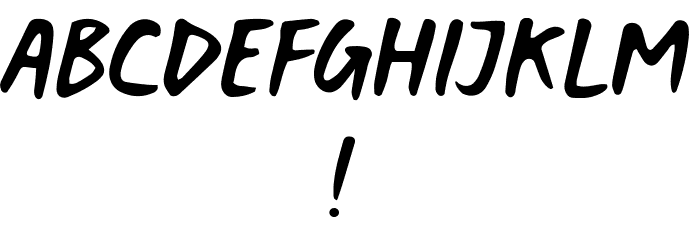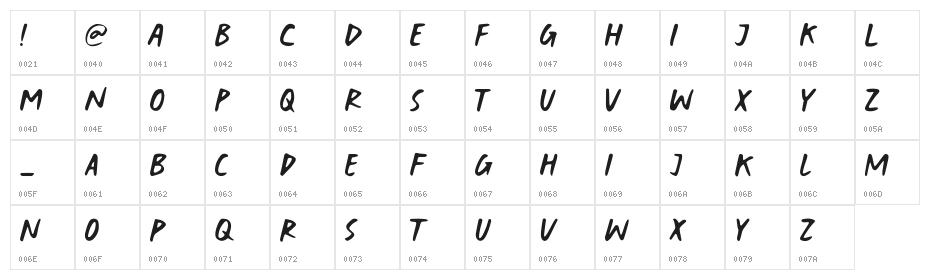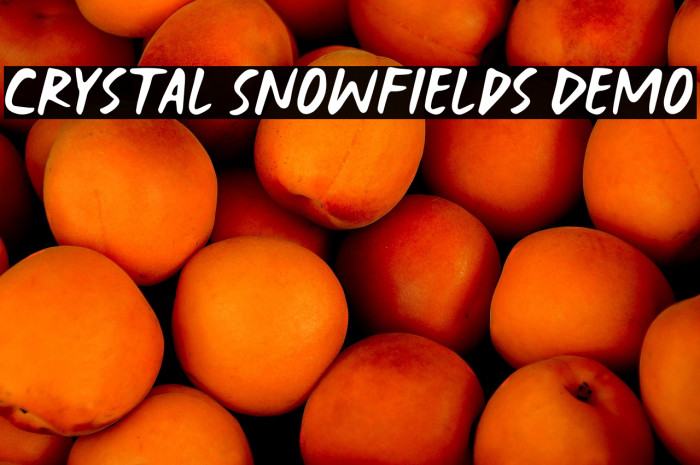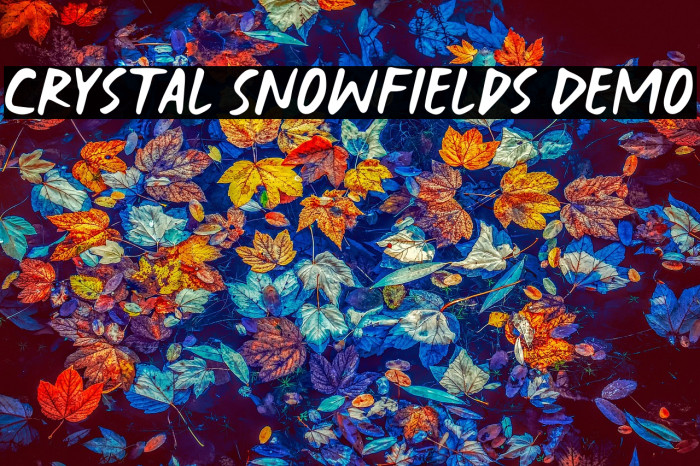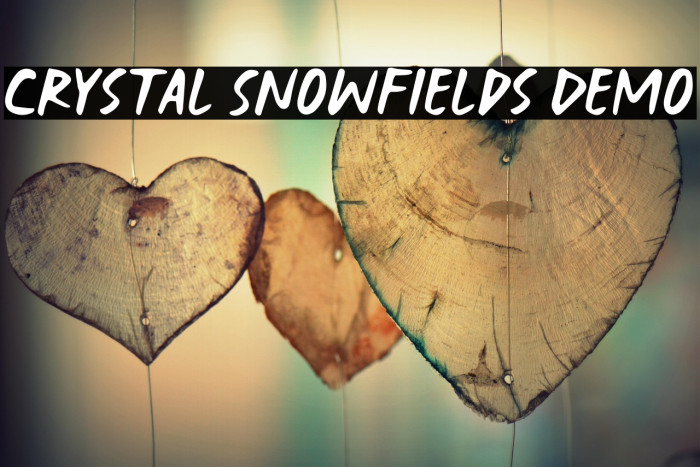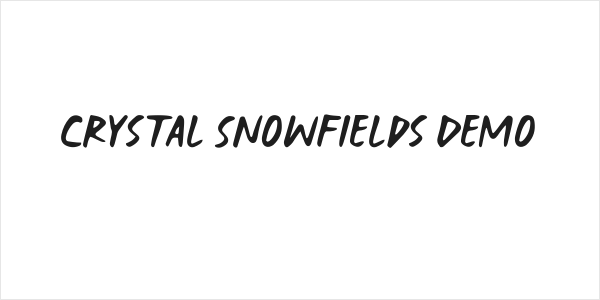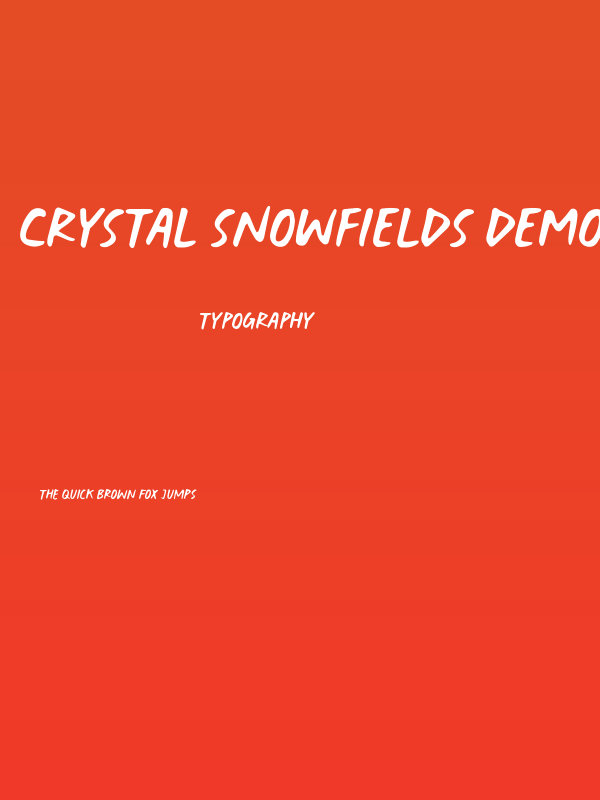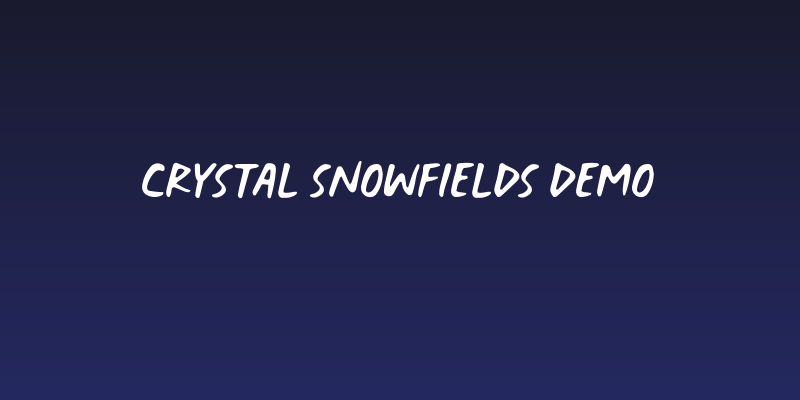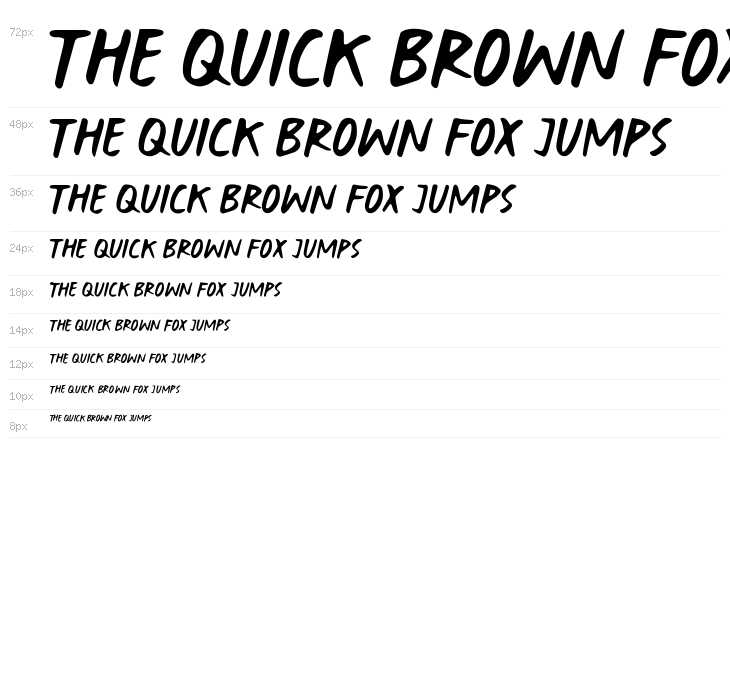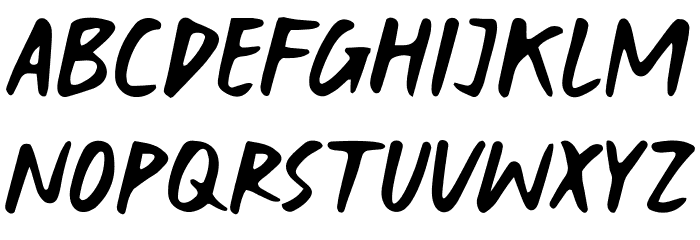
Crystal Snowfields Demo Font
Crystal Snowfields Demo Description
This font features a bold and energetic handwritten style, characterized by its smooth, flowing curves and slightly irregular letterforms. The strokes are thick and consistent, giving it a strong presence on the page. The playful and informal nature of the design makes it ideal for projects that require a personal touch. The letters are closely spaced, enhancing the dynamic feel of the text. The font's overall appearance is modern and lively, suitable for a variety of creative applications.
Proposed ProjectsIdeal for greeting cards, posters, social media graphics, and branding projects that require a personal and lively touch.